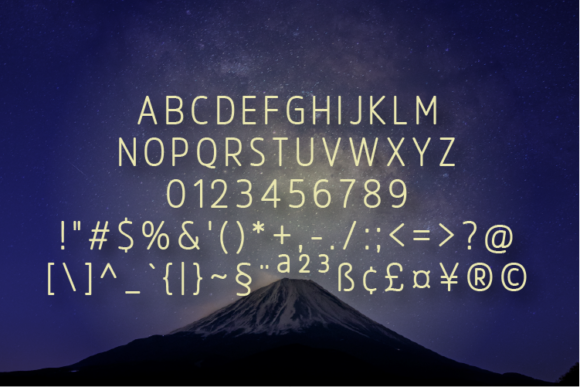
Introduction to Qolam Medium Font
As a designer, have you ever stared at a blank page, searching for the perfect font to bring your creative project to life? The moment of truth arrives when you find that one font that elevates your design and makes it truly special. For many designers, this moment is often sparked by discovering a high-quality font that’s both versatile and timeless.
Enter Qolam Medium Font, a gorgeous Swedish-style sans serif font that’s about to become your new go-to design resource. With its clean lines, elegant feel, and transparent background, this font is perfect for a wide range of design environments, from invitations and magazines to websites and logos.
Key Features of Qolam Medium Font
- High-quality font for creative projects, suitable for various design applications
- Features a unique, elegant design with a medium weight, perfect for headings and titles
Honest Review: Qolam Medium Font
I recently came across the Qolam Medium Font and was impressed by its potential for creative projects. As a designer, I always look for high-quality fonts that can elevate my work, and Qolam Medium Font did not disappoint.
What works well: ✨ The font has a unique and elegant design that works well for headings and titles. It’s also highly legible, making it suitable for body text. The Qolam Medium Font is available for free download, which is a huge plus for designers on a budget. Additionally, the font comes with a transparent background, making it easy to customize and integrate into any design project.
What doesn’t work well: ⚠️ The font lacks a bold weight, which can be a limitation for designers who need to create emphasis. Additionally, the font may not be suitable for projects that require a sans-serif font.
Overall impression: I’m impressed by the Qolam Medium Font and would recommend it for designers looking for a high-quality, elegant font for their creative projects. With its free download option and transparent background, it’s a valuable design resource that can help take your projects to the next level.
- Highly legible and elegant design
- Unique and creative feel
Using Qolam Medium Font in Creative Projects
Designing with Qolam Medium Font
When using Qolam Medium Font, consider the following tips for getting the most out of it:
- Use a transparent background to create a clean and minimalist look.
- Experiment with different font sizes and styles to add depth and visual interest.
- Combine Qolam Medium Font with other design elements, such as graphics and images, to create a cohesive design.
Qolam Medium Font is versatile and can be used in a variety of design contexts, including:
- Business cards and letterheads.
- Brochures and flyers.
- Web design and digital marketing materials.
- Print advertising and promotional materials.
Alternatives to Qolam Medium Font
Lato is a high-quality, free download font that is perfect for creative projects requiring a clean and modern look. It’s available in various weights, including a medium weight that can be used as a substitute for Qolam Medium Font. Lato is ideal for use in logos, branding, and digital design. When compared to Qolam Medium Font, Lato has a more rounded and friendly feel, making it suitable for projects that require a softer aesthetic.
Montserrat is a popular, free download font that is known for its high-quality design and versatility. It’s a great alternative to Qolam Medium Font for projects that require a strong, urban feel. Montserrat is ideal for use in logos, branding, and digital design. When compared to Qolam Medium Font, Montserrat has a more geometric and industrial feel, making it suitable for projects that require a bold and edgy aesthetic.
Merriweather is a classic, high-quality font that is perfect for creative projects requiring a traditional and elegant look. It’s available in various weights, including a medium weight that can be used as a substitute for Qolam Medium Font. Merriweather is ideal for use in print design, branding, and digital design. When compared to Qolam Medium Font, Merriweather has a more traditional and serif feel, making it suitable for projects that require a timeless and sophisticated aesthetic.